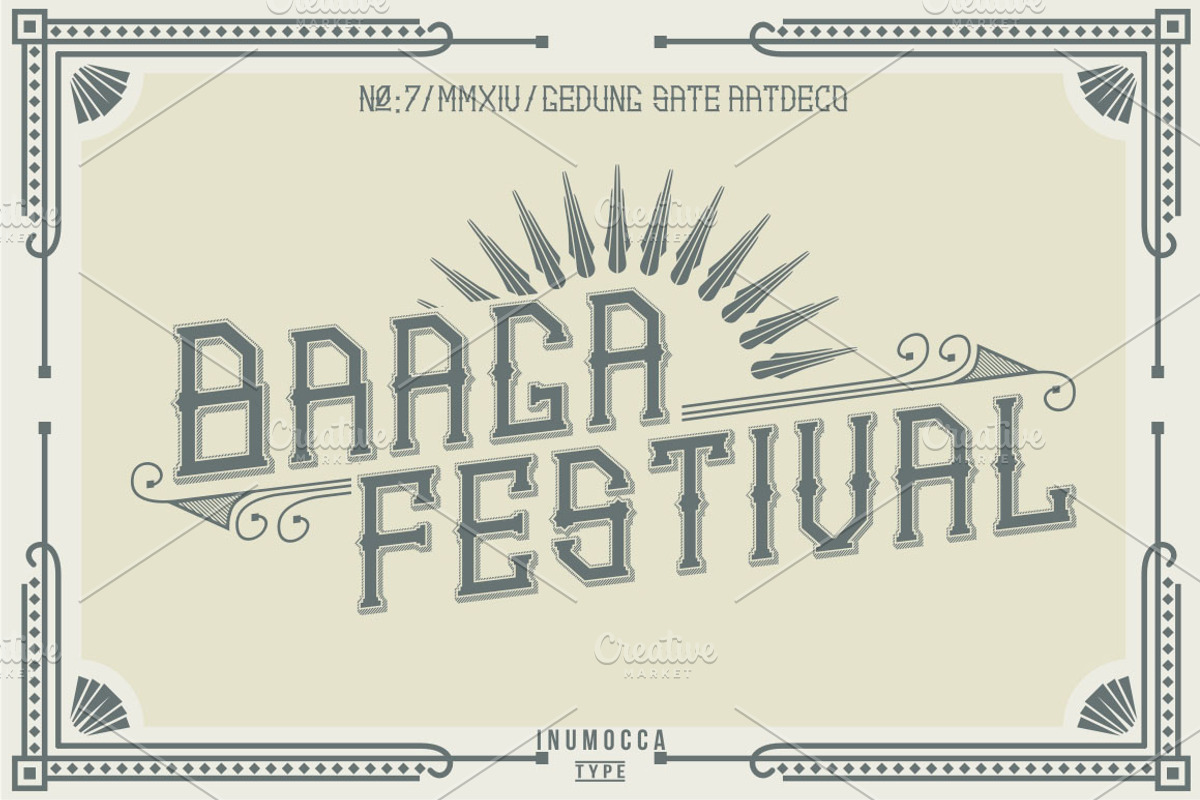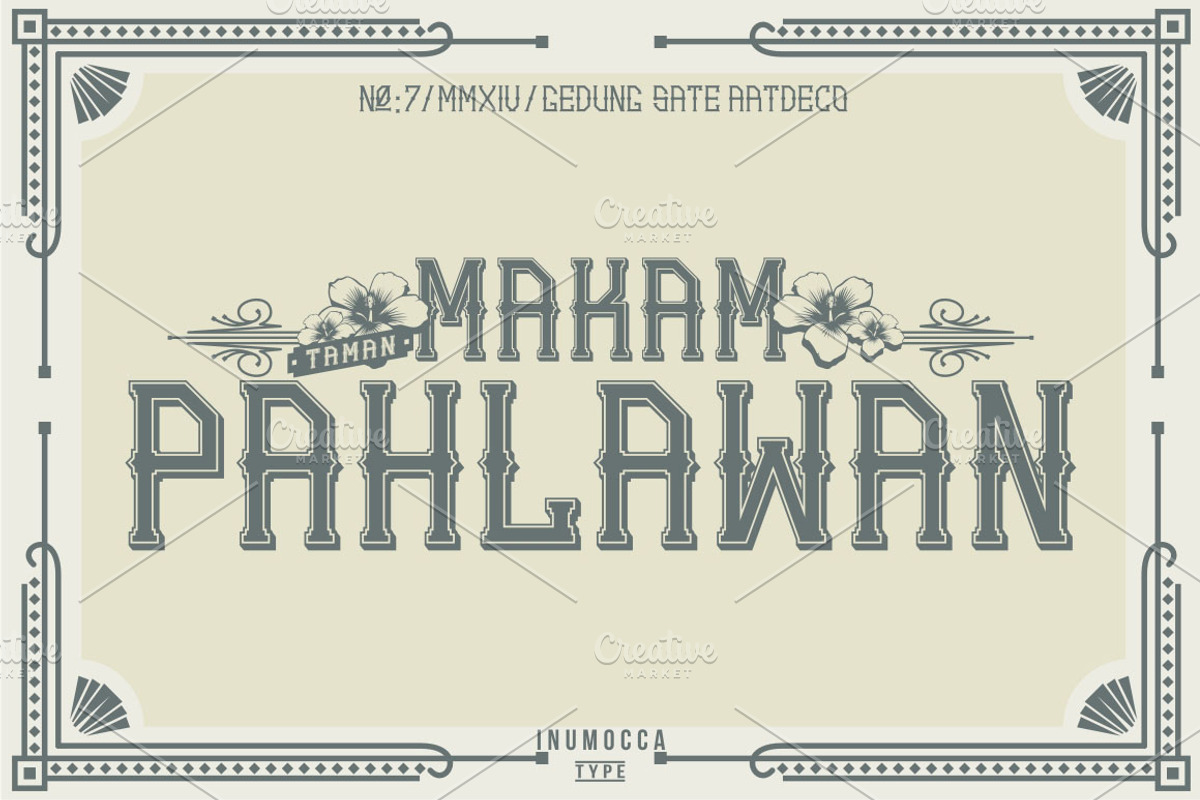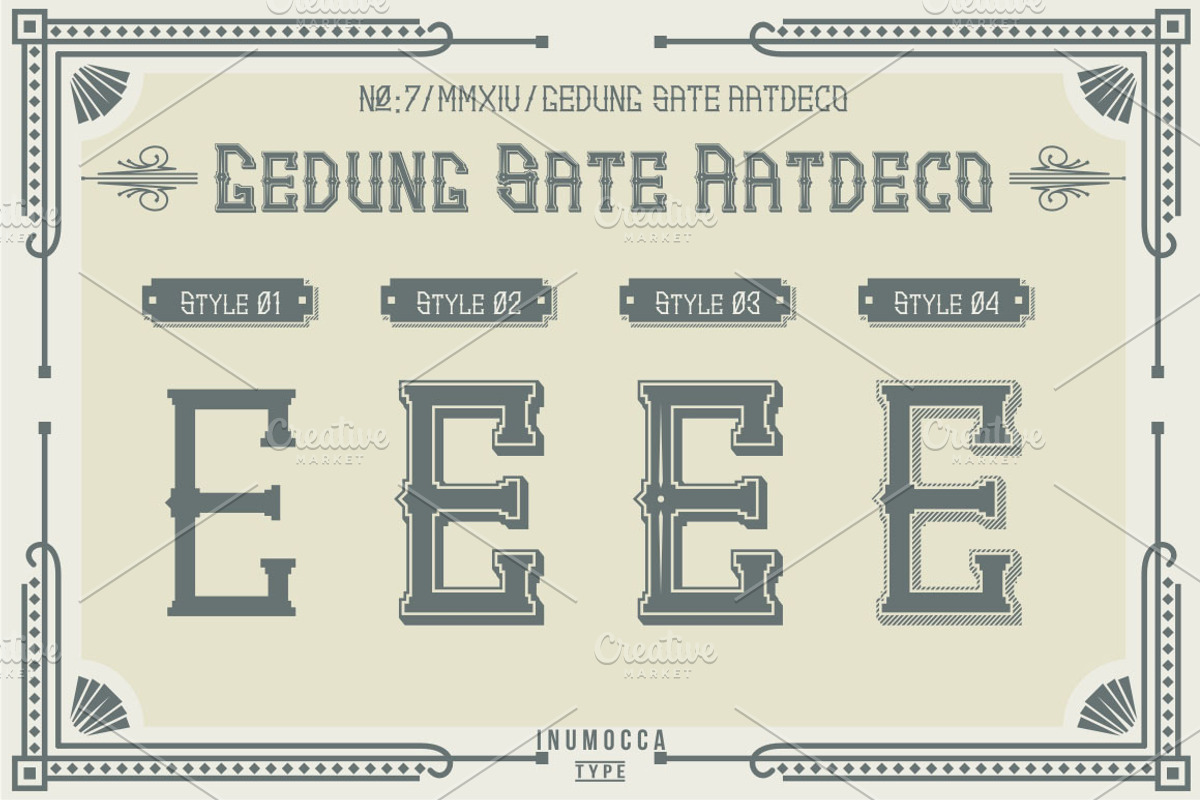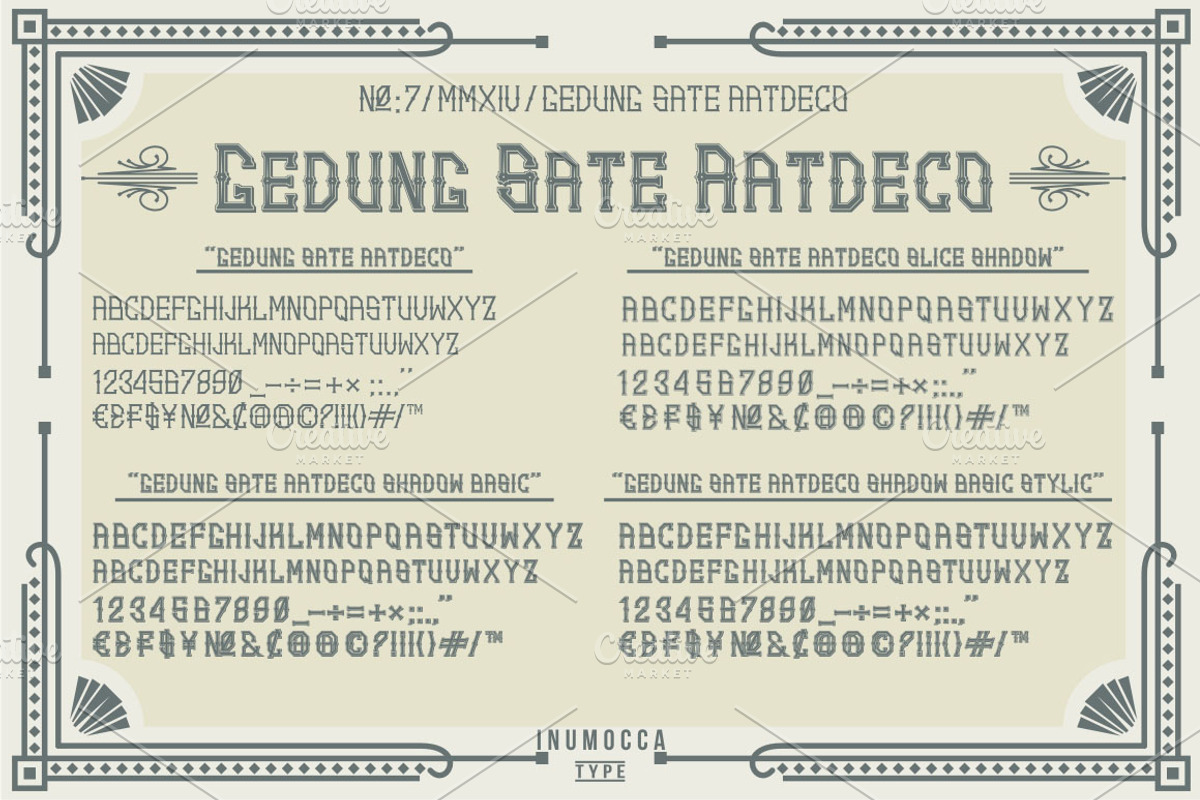
Artdeco (family font)
Artdeco (family font) by inumoccatype is a font selected for branding, posters, packaging, typography.
- Gedung Sate Artdeco inspired from Ornament,Building and architectural style of Gedung sate Building in Bandung, West Jav
Why Artdeco (family font) is worth a look
Artdeco (family font) by inumoccatype fits naturally into Branding, posters, packaging, typography.